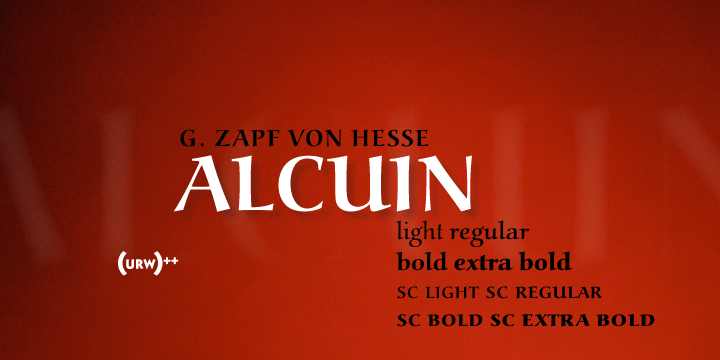
Alcuin Font is perfect for religious publications, medieval manuscripts, church bulletins, monastery documents, historical texts, scholarly biblical studies, spiritual books, cathedral signage, and ecclesiastical materials that require authentic Carolingian-inspired typography with sacred character.
This Alcuin Font is exciting because it authentically recreates the revolutionary Carolingian minuscule script developed under Charlemagne's court, featuring distinctive letterforms that transformed medieval writing and became the foundation of modern lowercase letters while maintaining spiritual elegance and historical accuracy.
The Alcuin Font family includes traditional weights with Carolingian-inspired styling, complete character sets with uppercase and lowercase letters, medieval numerals, period-appropriate punctuation, and special ecclesiastical symbols that provide comprehensive typography solutions for religious and historical design applications requiring authentic medieval aesthetics.
Perfect for creating meaningful spiritual communications and scholarly historical materials, Alcuin Font Free Download delivers the sacred medieval typography that connects modern text with centuries of religious tradition. This distinctive typeface honors the legacy of Alcuin of York and Carolingian scribes, making it essential for projects celebrating Christian heritage, medieval studies, and ecclesiastical authenticity with timeless spiritual appeal.